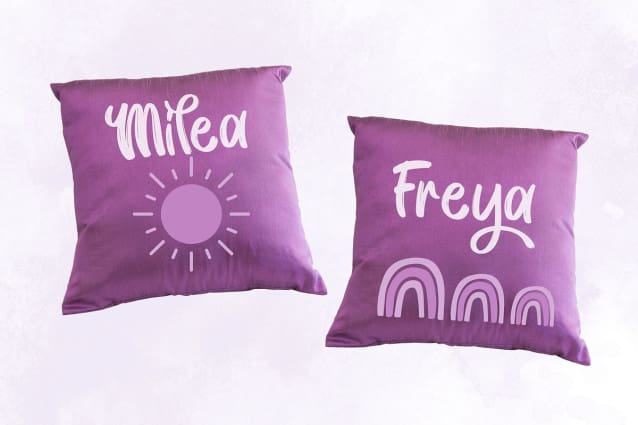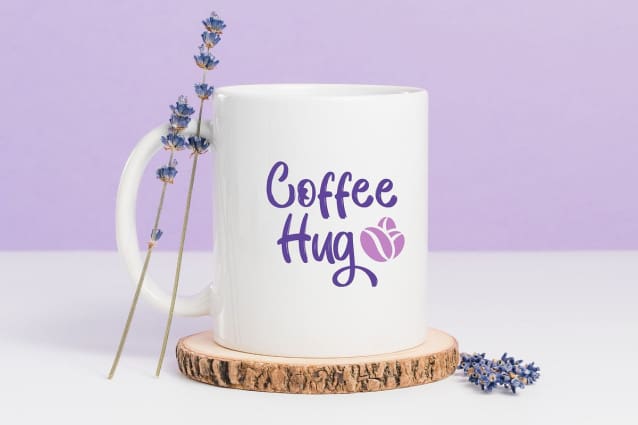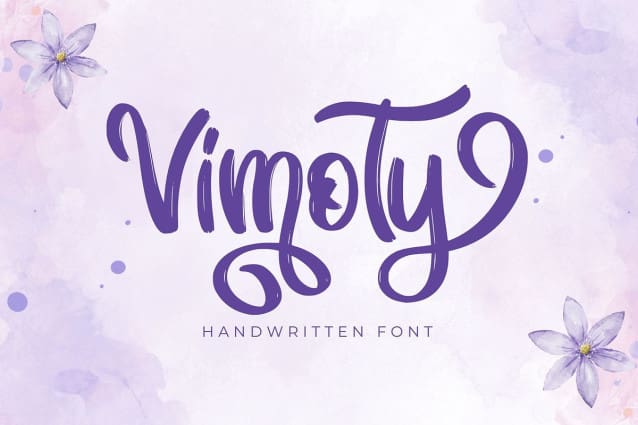
Vimoty Brush Font
Vimoty Brush Font, a charming handwritten font, adds a unique touch to every design. Ideal for invitations, branding, or social media posts, it offers elegance and readability, enhancing creative projects effortlessly.